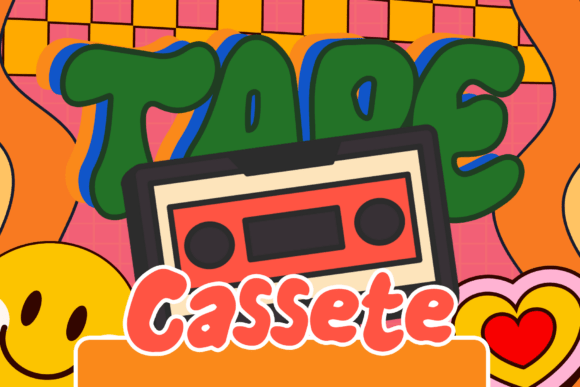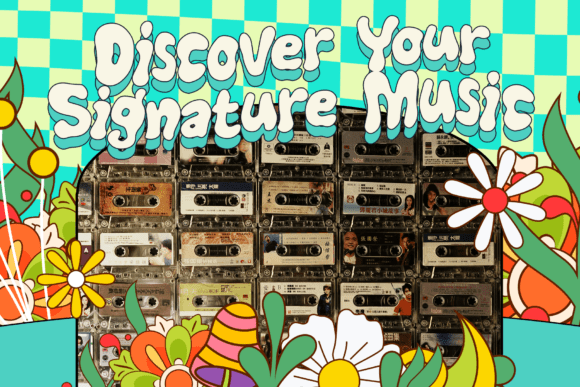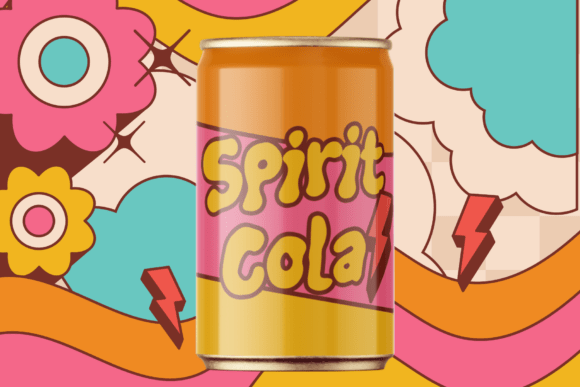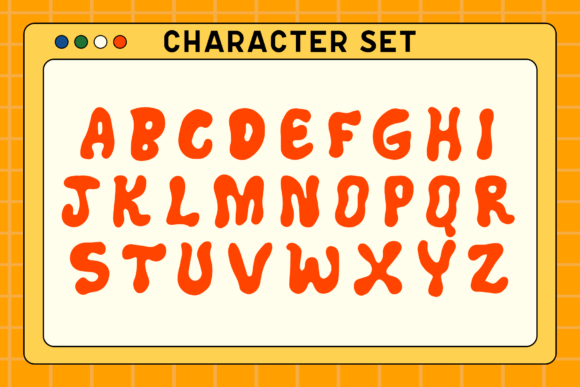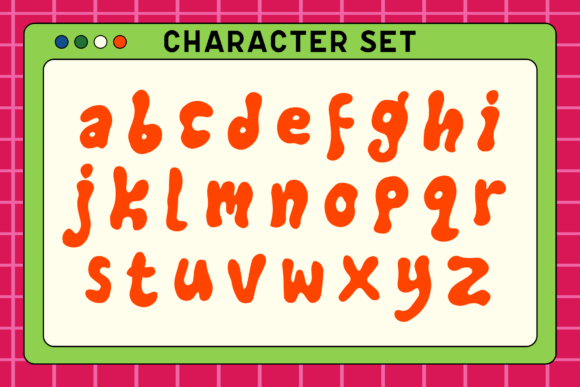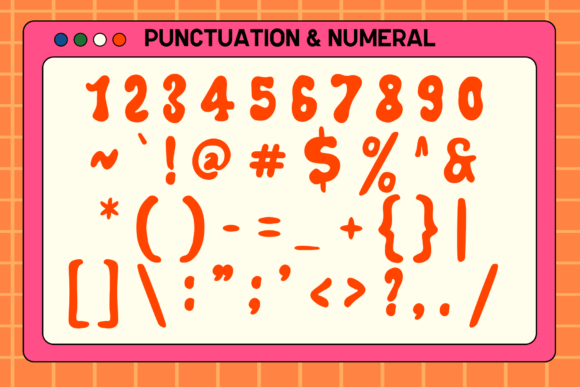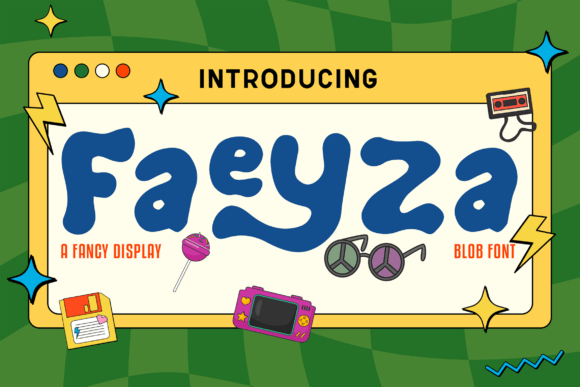
Introducing Faeyza Font: The Ultimate Choice for Playful and Creative Designs
Are you looking for a font that can add a touch of playfulness and friendliness to your designs? Look no further than Faeyza Font, a fancy blob display font that is sure to capture the attention of your audience. With its soft, fluid, and organic letterforms, Faeyza is the perfect choice for designers and crafters who want to create cheerful and eye-catching designs.
What Makes Faeyza Font So Special?
Faeyza Font is characterized by its smooth curves and rounded contours, which give it a whimsical personality that is ideal for projects that seek a friendly and expressive typographic style. Inspired by playful shapes and modern visual trends, this typeface is designed to stand out in bold compositions, making it perfect for branding, posters, children’s designs, packaging, social media graphics, and creative headlines.
The Design Behind Faeyza Font
Faeyza Font is designed to bring a sense of fun and approachability to your designs while maintaining clarity and visual balance across both digital and print media. The font features a unique blend of smooth curves and rounded contours that create a charming and contemporary aesthetic suitable for a wide range of creative applications.
Perfect for a Wide Range of Creative Applications
Whether you’re designing a logo, creating a poster, or crafting a social media graphic, Faeyza Font is the perfect choice. Its versatility and flexibility make it suitable for a wide range of creative applications, including:
- Branding: Create a memorable and eye-catching brand identity with Faeyza Font.
- Posters: Grab the attention of your audience with bold and playful posters designed with Faeyza Font.
- Children’s Designs: Create fun and engaging designs for kids with Faeyza Font’s playful and whimsical personality.
- Packaging: Stand out on store shelves with Faeyza Font’s unique and eye-catching design.
- Social Media Graphics: Create engaging and shareable social media graphics with Faeyza Font.
- Creative Headlines: Add a touch of playfulness and creativity to your headlines with Faeyza Font.
Key Features of Faeyza Font
So, what makes Faeyza Font so special? Here are some of its key features:
- Soft, fluid, and organic letterforms
- Smooth curves and rounded contours
- Whimsical personality
- Ideal for friendly and expressive typographic styles
- Perfect for bold compositions
- Suitable for a wide range of creative applications
Why Choose Faeyza Font?
In conclusion, Faeyza Font is the ultimate choice for designers and crafters who want to add a touch of playfulness and friendliness to their designs. With its soft, fluid, and organic letterforms, smooth curves, and rounded contours, Faeyza Font is sure to capture the attention of your audience. Its versatility and flexibility make it suitable for a wide range of creative applications, from branding and posters to children’s designs and social media graphics. So why wait? Try Faeyza Font today and take your designs to the next level!